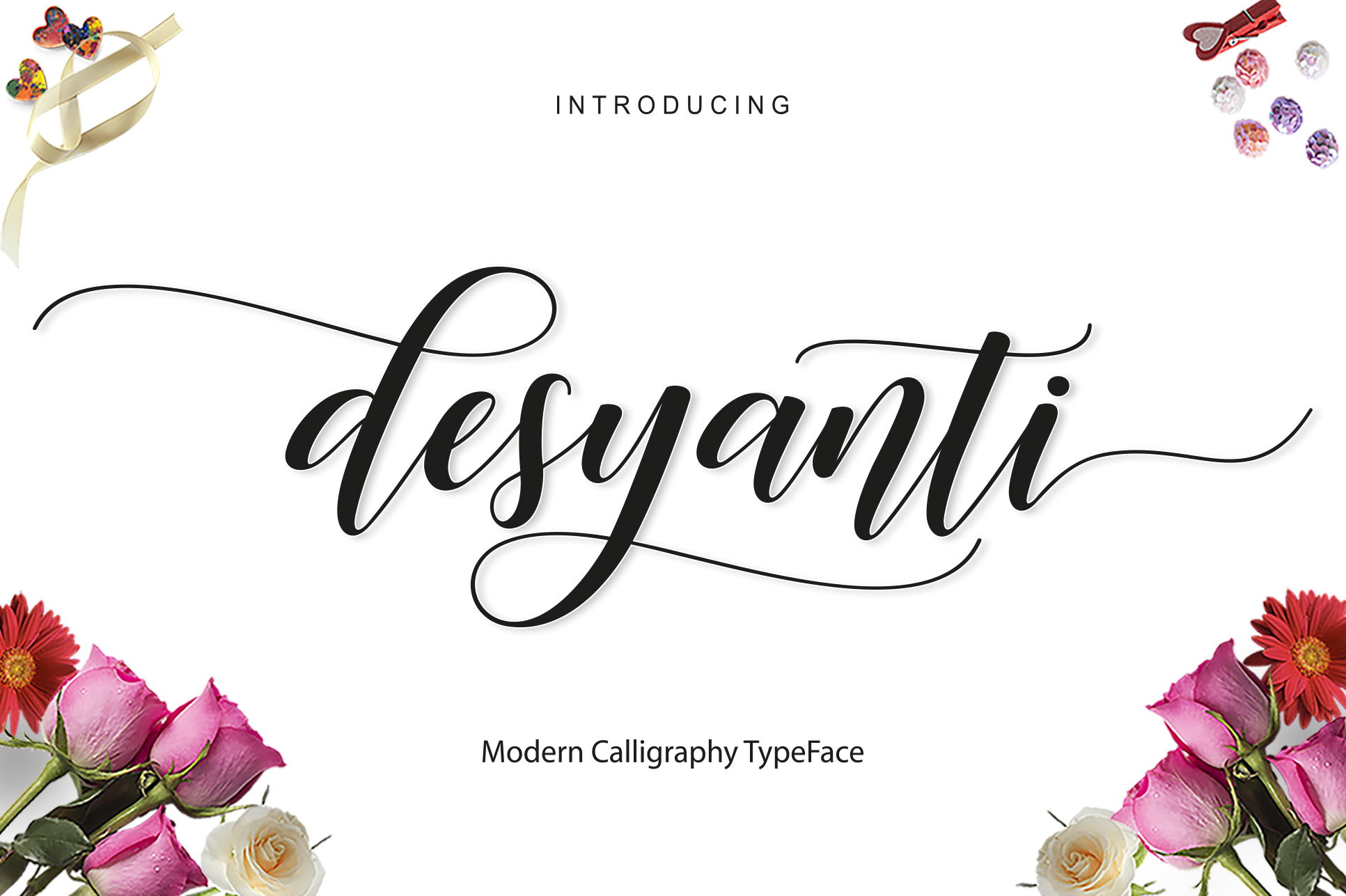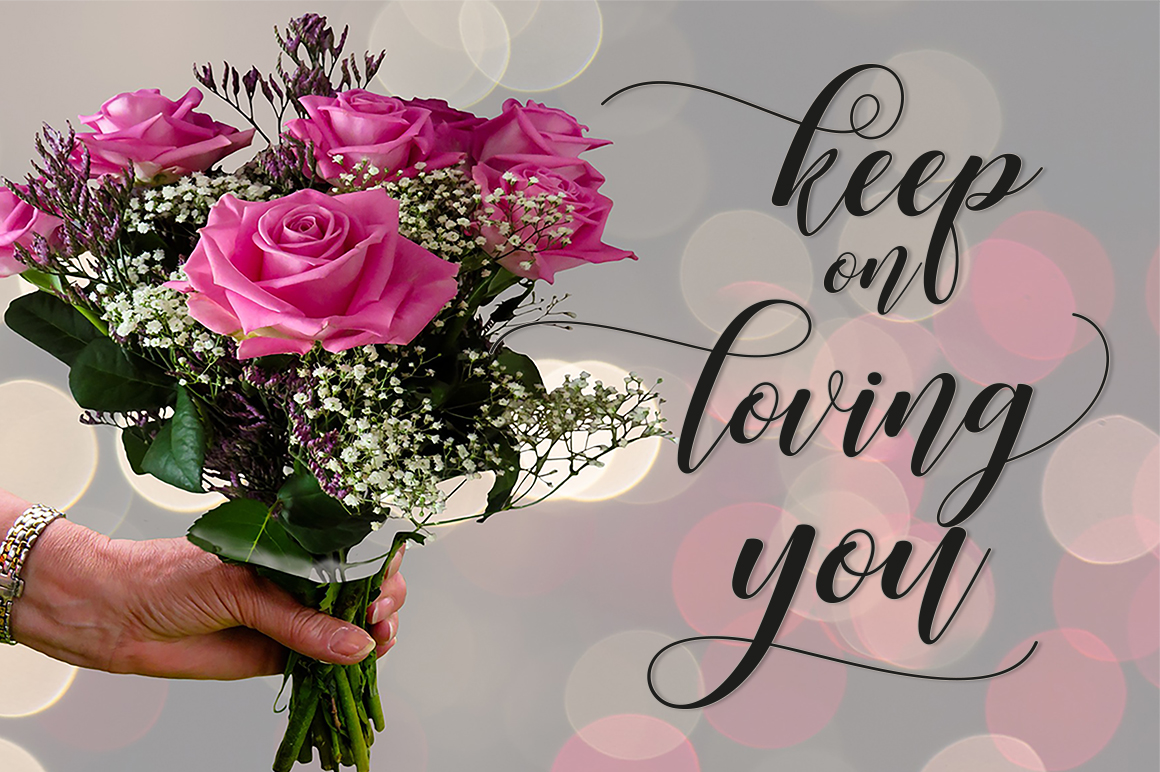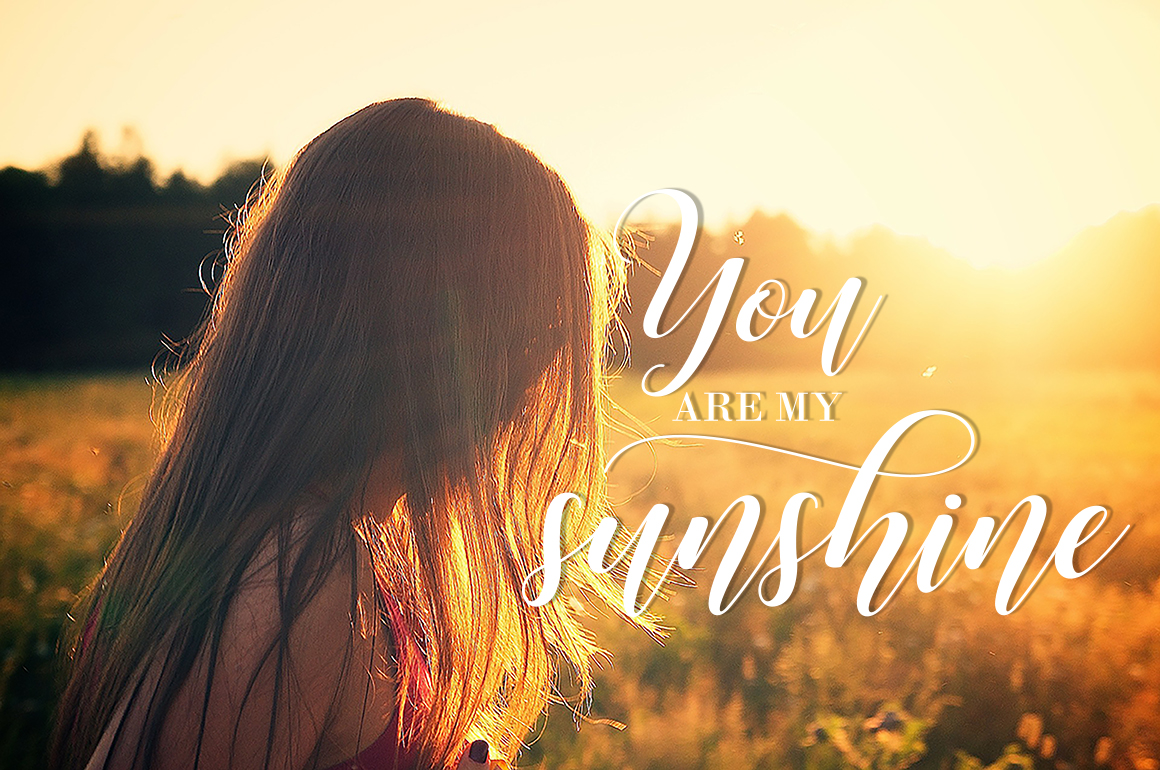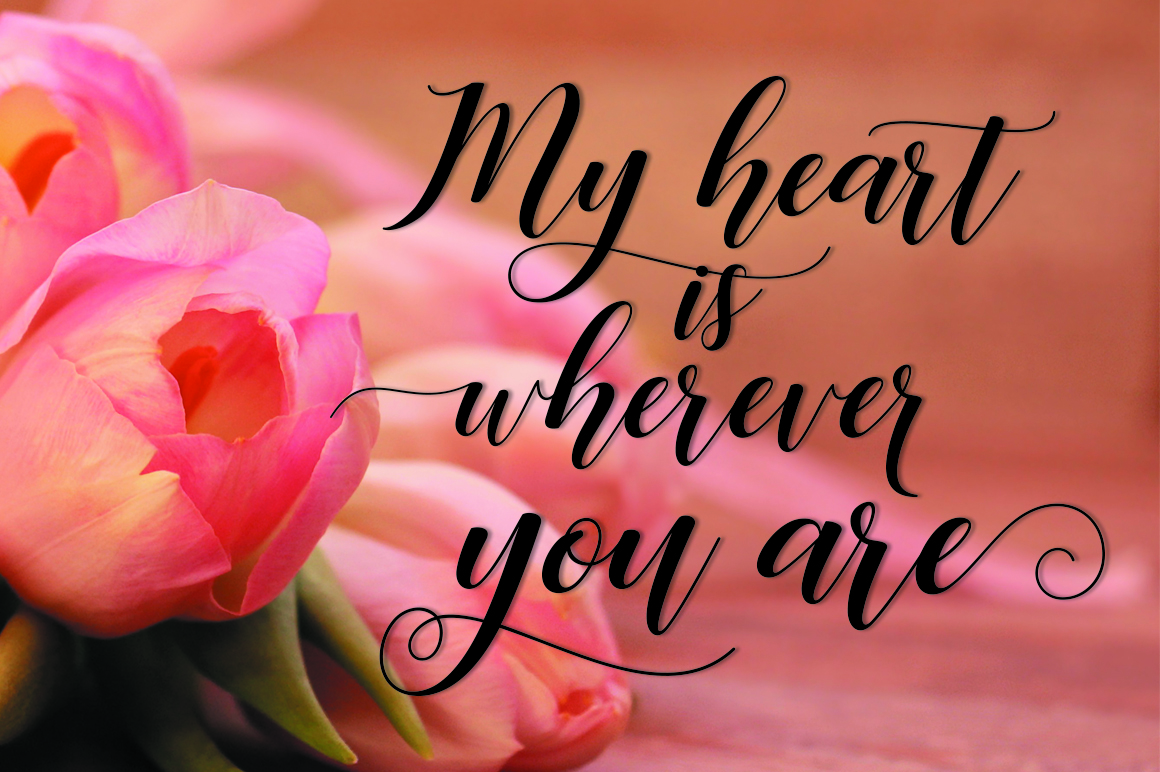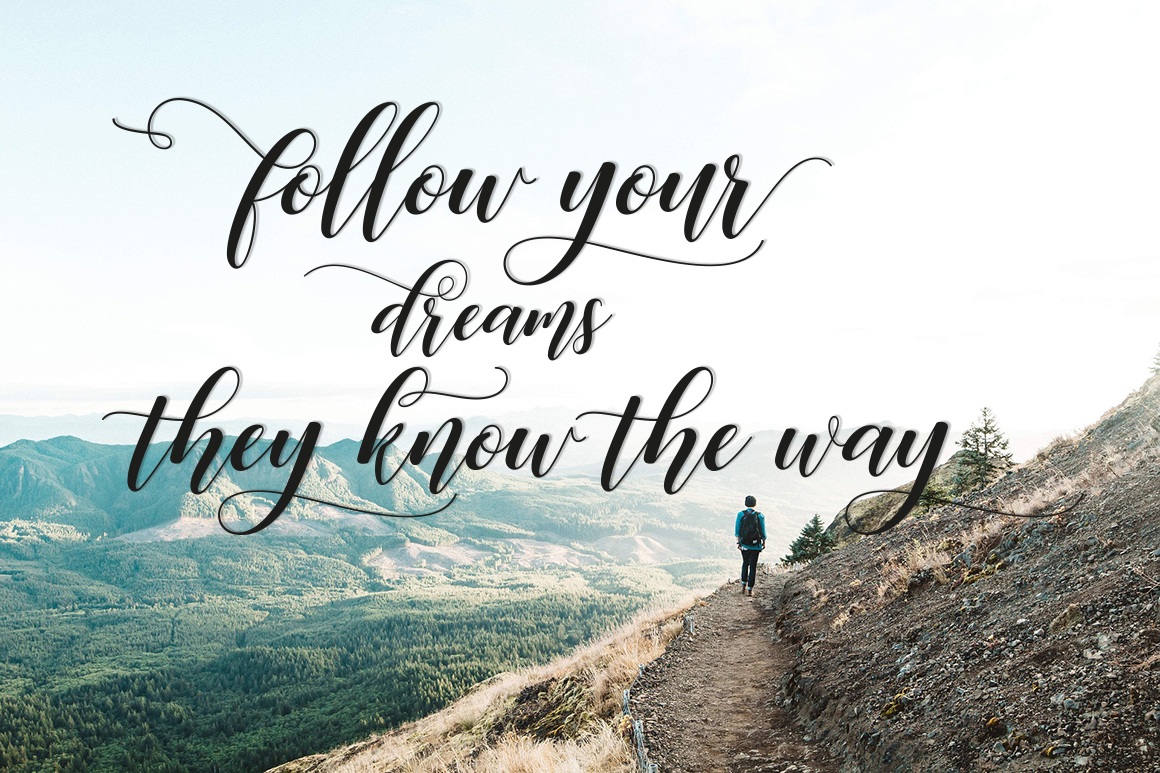
Desyanti Script Font
About Desyanti Script Font
The Desyanti Script is a fresh, fluid handmade font with a calligraphic style.
The decorative letters make for great personal designs. The font can be used for decorating wedding invites & birthday cards, creating signs or (personal) branding.
Desyanti comes with 545+ unique glyphs.